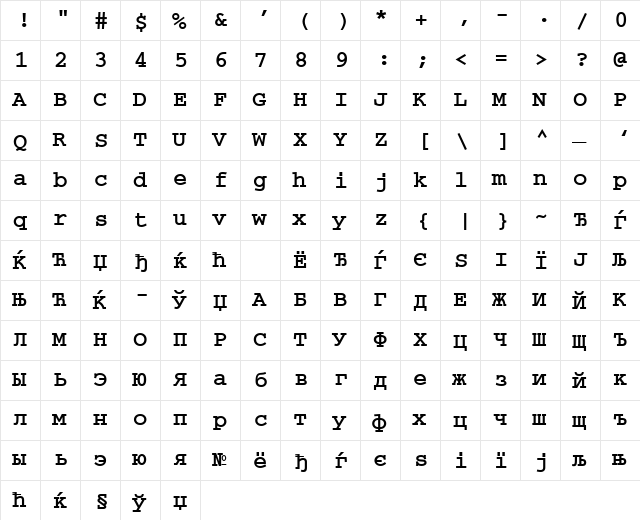
CourierISOCTT Bold Font Preview
Design Context for CourierISOCTT Typeface
CourierISOCTT uses fixed-width spacing throughout, giving it the structured, systematic character associated with coding environments and technical documentation. Its bold stroke weight gives it real presence on the page.
Well-suited to data-driven dashboards, coding tutorials, and any design that wants to reference the world of programming.
Pro Tip: Use CourierISOCTT with slightly increased line-height for extended reading — fixed-width spacing can feel dense in longer passages without extra breathing room.